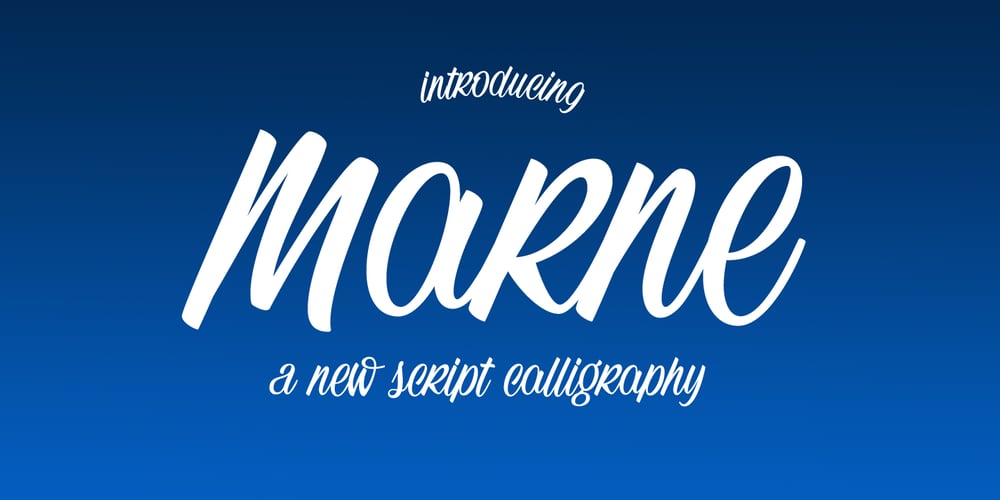
Marne Font Family was designed by Carine de Wandeleer and published by Eurotypo. Marne contains 1 styles and family package options. “Marne” is a new font inspired by letter designs from the 80’s but updated. Standing out for its condensation, its angular touch, its slight slant and its thick and thin lines, “Marne” is the perfect mix of elegance and informality. Open Type features include a full complement of international characters, alternatives and ligatures. With all this, the text will look alive and dynamic, without the monotony of repeated letterforms.“Marne” can be the choice to create titles, logos and posters for branding and packaging, invitations, greeting cards, magazine and book covers, children’s material, fashion, and wherever you want!